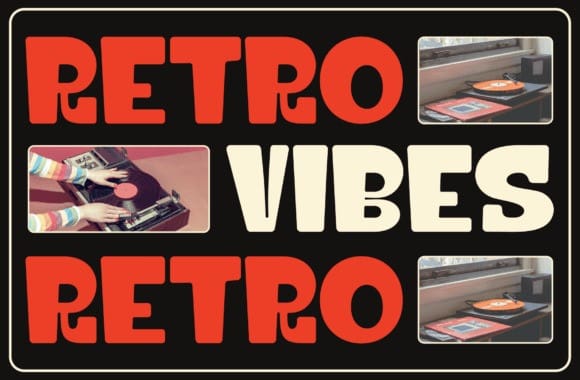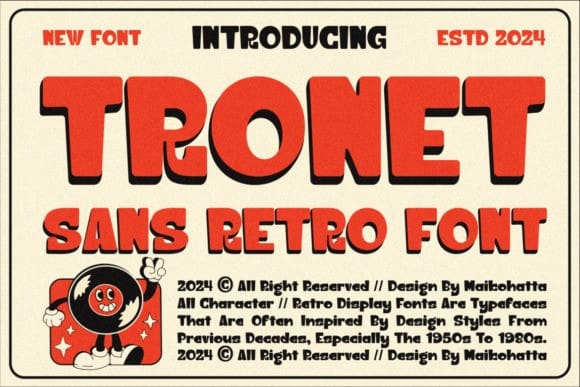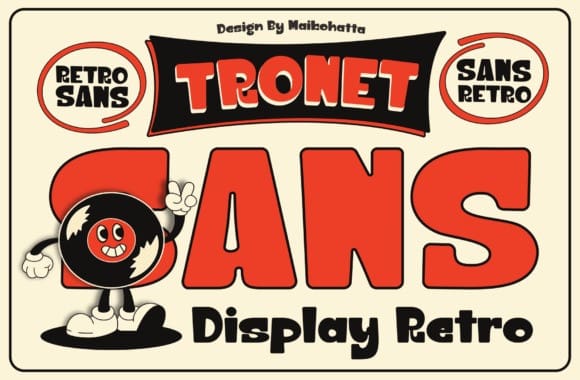
Tronet Display Font
Tronet Display font, characterized by a cheerful, optimistic and light-hearted atmosphere, with a handwritten style often seen in comics or cartoons. This font is perfect for projects that want to highlight playful and fun elements, such as poster designs, invitations, comics or promotional materials aimed at a young audience or those looking for a sense of fun.